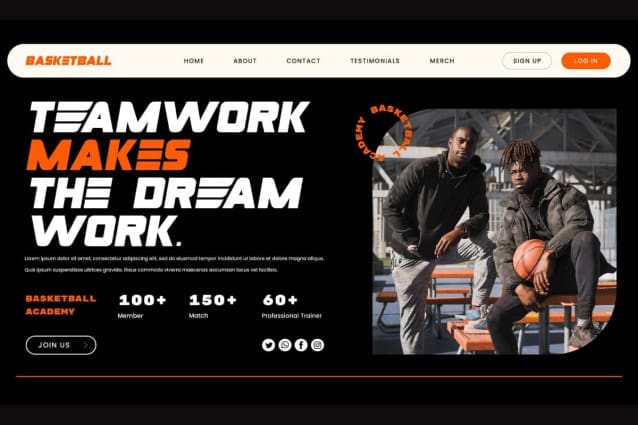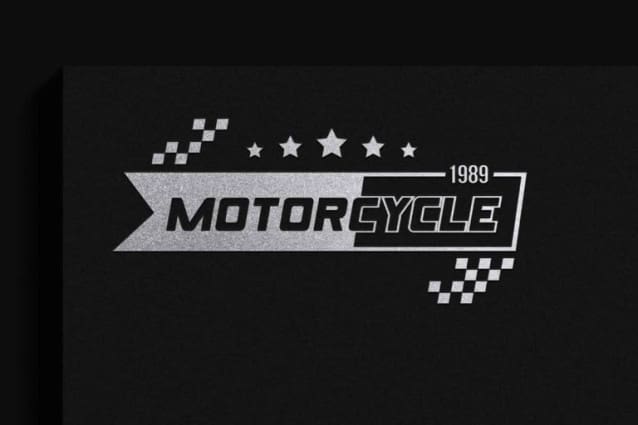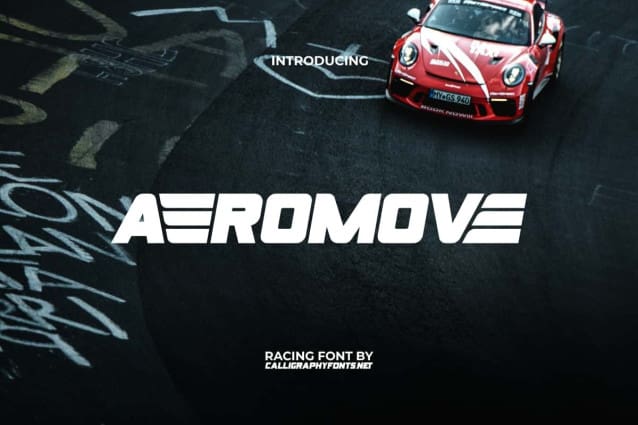
Aeromove Font
Aeromove Font is a modern racing display font designed for strong and fast branding. Inspired from aero and wings plane, the font Bring a sense of speed of movement and action to your next project with the dynamics of this typeface’s specially designed directional winged slant. Ideal for apps, banner, billboard, brochure, covers, decals, logos, headlines, poster, print projects, sign, sticker, website, and more.
Aeromove Font is an ideal choice for creating impressive visuals. Because it is creatively crafted that seamlessly combines modernity and functionality. It will attract attention in both print and digital designs. It will be perfect for accessories and merchandise, aviation, camper retail, clothing brand, game, graphic design, gym, menswear, motocross, motorsports, and much more.
Aeromove Font comes with a complete set of ALL CAPS for Uppercase and Lowercase, Number, a large range of Punctuation, Symbol and Alternate. It is supported with multilingual characters and ready to use both on Windows machine or Mac with simple installations. It’s tested to work well in the Adobe Apps (Illustrator, Adobe InDesign, Adobe Photoshop) CorelDraw, and others. PUA Encode Characters means you can access all the characters easily – Fully accessible without additional design software.